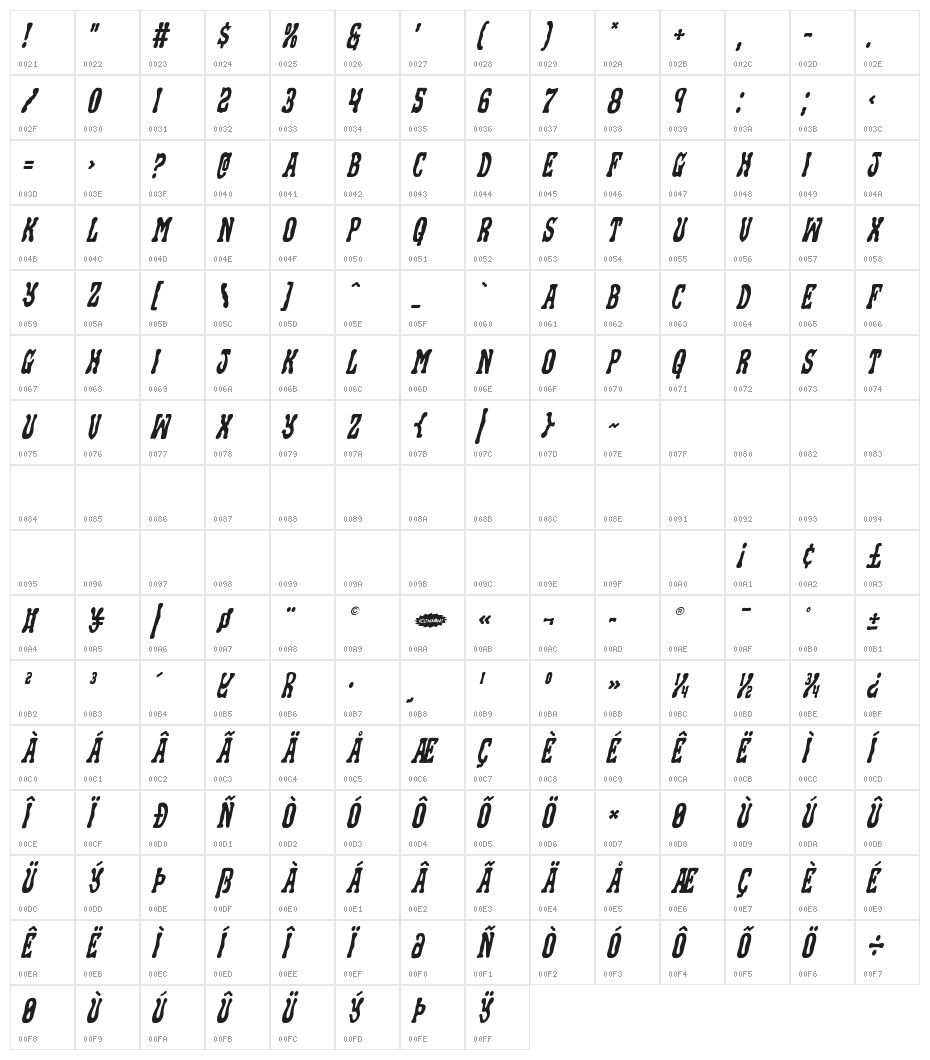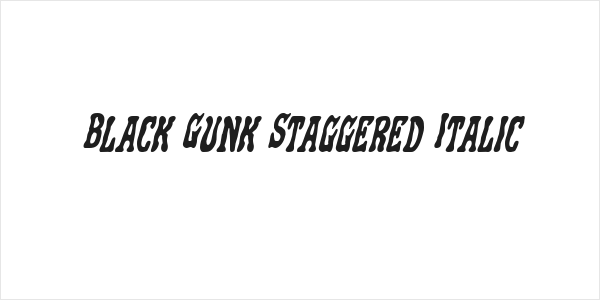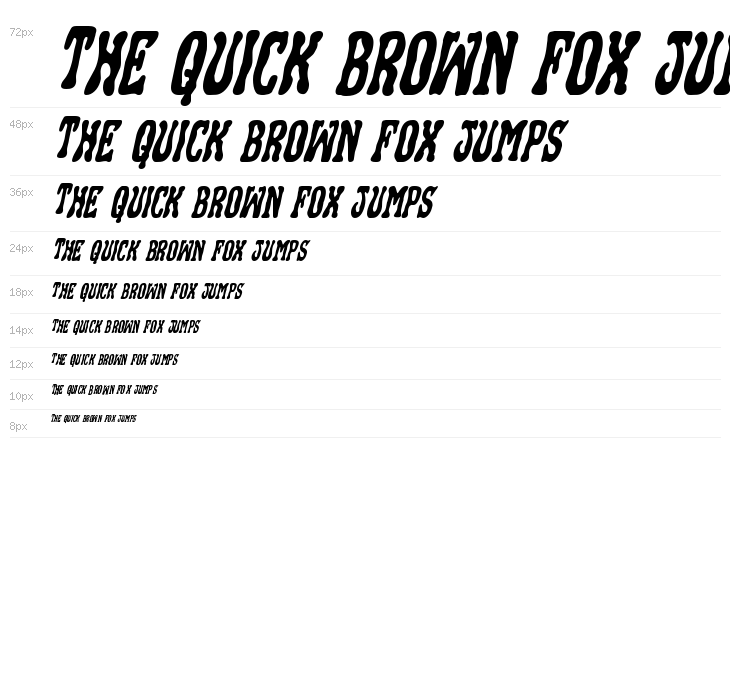
Black Gunk Staggered Italic Font
Black Gunk Staggered Italic Description
This font features a bold and dynamic design with staggered, italicized characters that create a sense of movement and energy. The letters are thick and robust, with a playful, almost cartoonish style that makes them stand out. The strokes are uneven, giving the font a hand-drawn appearance, while the italic slant adds a forward momentum. This font is highly decorative, making it ideal for projects that require a strong visual impact. The numbers and special characters maintain the same bold and staggered style, ensuring consistency across all elements.